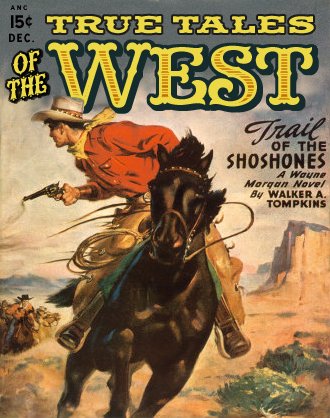
Jerry Berg's latest creation is an elegant western style with an abundance of flair. Decorative scrollwork within the letters provide the perfect amount of ornamentation, yet are thick enough to allow you to add your own effects.